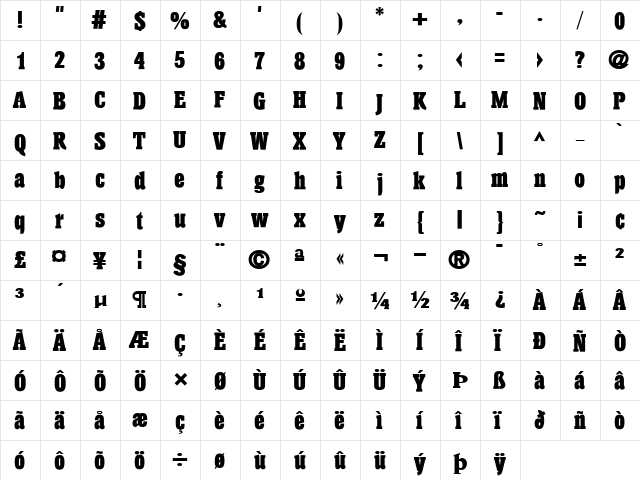
DS Hansen Regular
| Foundry | Typographer Mediengestaltung |
| Designer | Typographer Mediengestaltung |
Design Context for DS Hansen Typeface
DS Hansen is a composed and adaptable typeface that performs quietly and consistently across a wide range of design contexts.